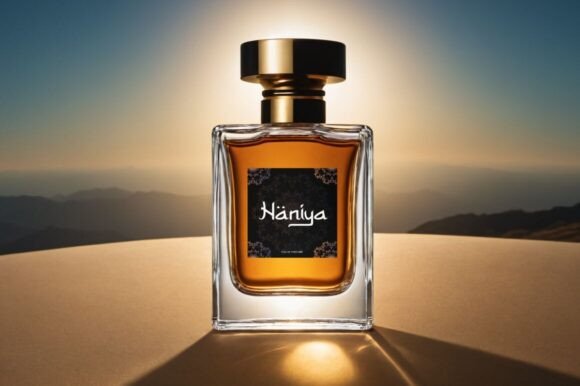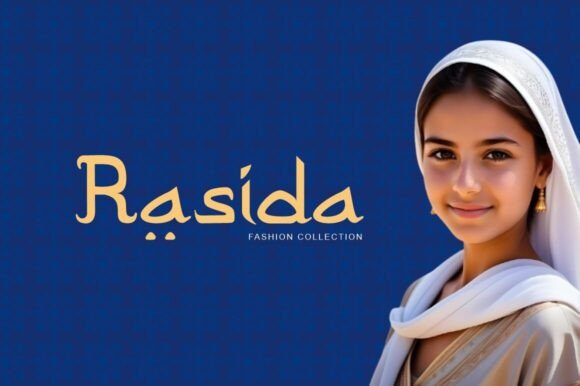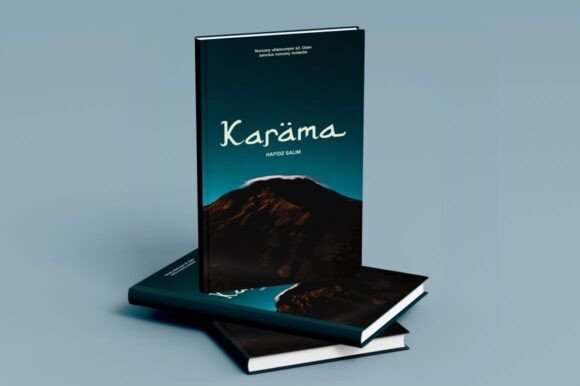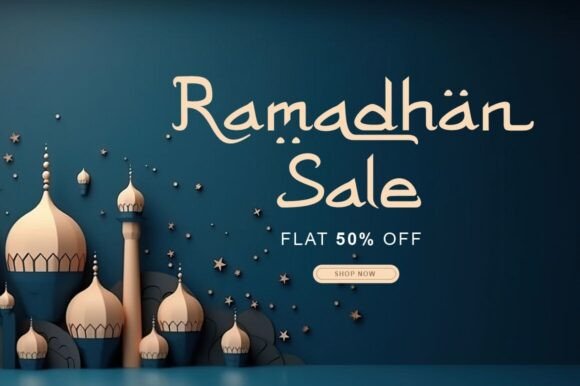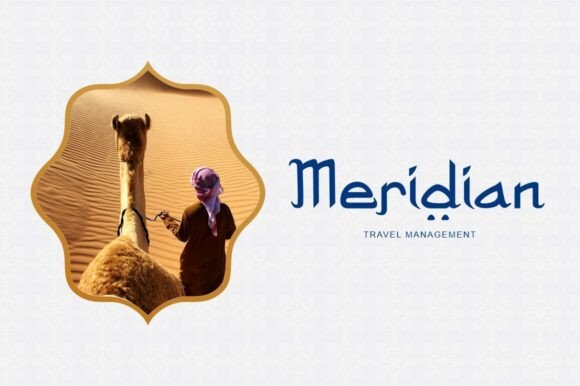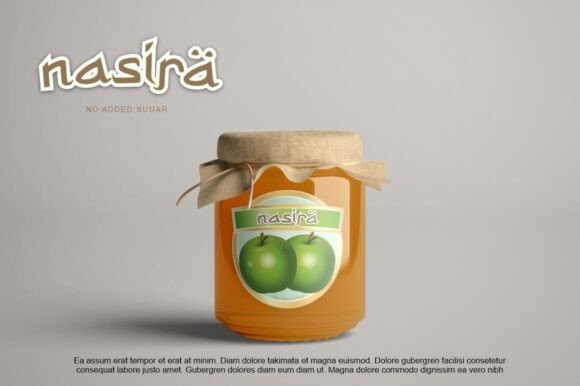
Discover the Elegance of Al Barakah Font
As a designer, I’ve had my fair share of moments where finding the perfect font felt like searching for a needle in a haystack. I recall working on a project that required a font with an Arabic aesthetic, exuding elegance and cultural depth. The client wanted a typeface that would transport their audience to the rich world of Islamic art. That’s when I stumbled upon Al Barakah Font, and it was love at first sight! 💕
A Personal Review of Al Barakah Font
- ✅ Unique and stylish display font that captures the essence of Arabic design
- ✅ Combines modern and classic styles to create a timeless look
- ✅ Perfect for a variety of applications, including movies, documentaries, logos, posters, games, book covers, headlines, and titles
- ✅ Elegant and luxurious feel that leaves a lasting impression
While Al Barakah Font is an excellent choice, there are a few things to keep in mind:
- 🤔 Limited use of lowercase letters, which might limit its use in certain projects
- ⚠️ Not suitable for body text due to its ornate nature
- Experiment with OpenType features, such as glyphs and stylistic alternates, to add more flair to your text
- Take advantage of OpenType features, such as ligatures and stylistic sets, to add more depth to your text
The Backstory of Al Barakah Font
Al Barakah Font was designed with the intention of capturing the essence of Arabic design and Islamic art. The creator of the font wanted to develop a typeface that would exude elegance and cultural depth, while also being versatile enough for various applications. The result is a stunning font that combines modern and classic styles to create a timeless look.
| Author | Reyrey Blue |
Q: What is Al Barakah Font?
A: Al Barakah Font is a unique and stylish display font that captures an Arabic aesthetic, inspired by the richness of Islamic art.
Q: What can I use Al Barakah Font for?
A: Al Barakah Font is perfect for a variety of applications, including movies, documentaries, logos, posters, games, book covers, headlines, and titles.
Q: Is Al Barakah Font suitable for body text?
A: No, Al Barakah Font is not suitable for body text due to its ornate nature. It’s best used for titles, headings, and decorative purposes.